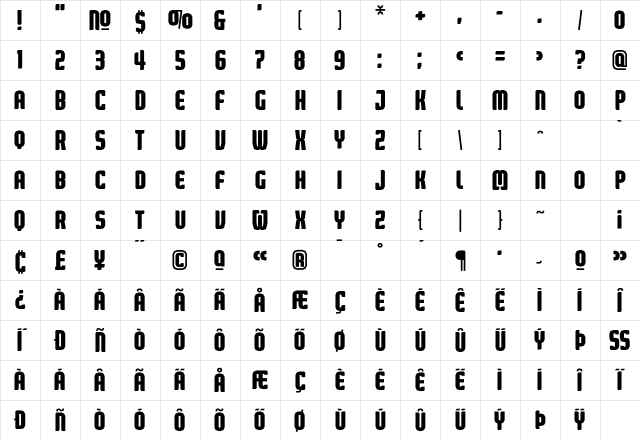
Judgement BlackCondensed Free Font
Judgement BlackCondensed
Style: BlackCondensed
Complete Judgement BlackCondensed glyph index. Displaying only characters natively supported by Judgement BlackCondensed font.
Design Context for Judgement
Judgement is a composed and adaptable typeface that performs quietly and consistently across a wide range of design contexts. Its narrow stance lets it pack a punch even in space-constrained designs.